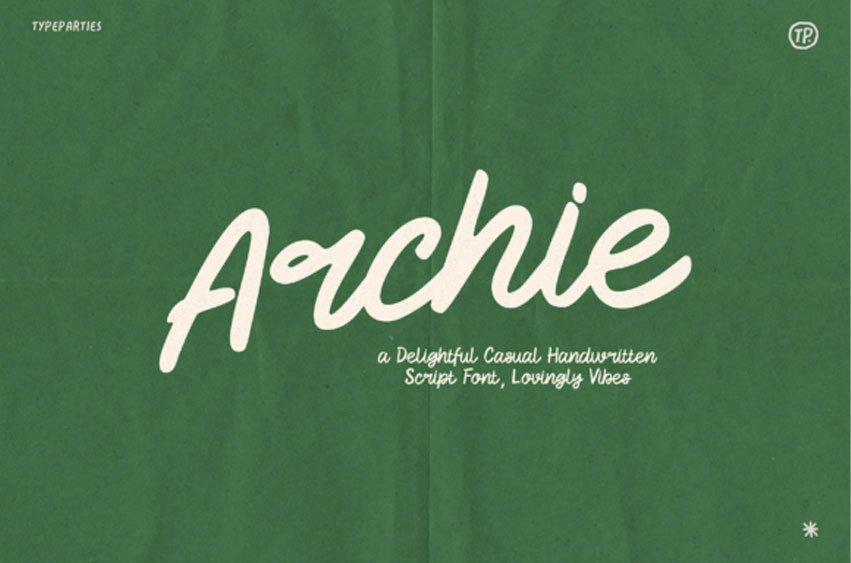
Archie Font is a casual handwritten script font that exudes charm and playful curves. Every curve and stroke reflects the artistry of loving touch, resulting in a font full of personality and warmth.
Its relaxed, flowing style is perfect for adding a personal and approachable feel to your designs. Whether you’re creating logos, invitations, social media posts, or heartfelt messages, Archie Font effortlessly conveys creativity and charm. Bring a handcrafted essence to your projects with this versatile and expressive font.